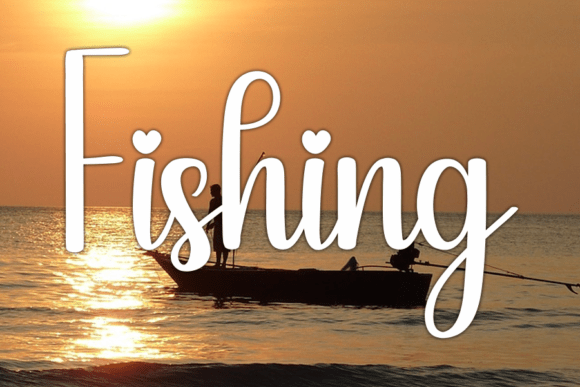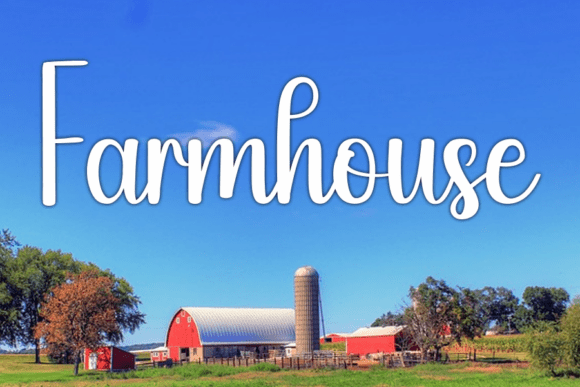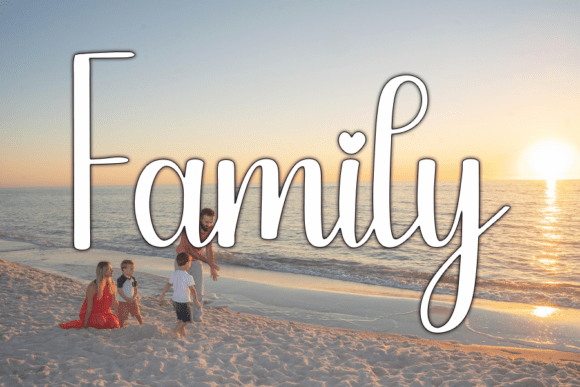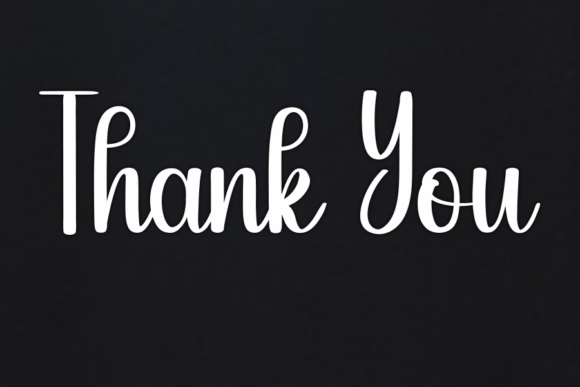
Infuse Your Designs with Emotion and Grace: The Heartbeat Font
In the world of typography, few fonts capture the essence of romance and elegance as beautifully as the Heartbeat font. This delicate monolinear script dances across the page with a grace that is hard to ignore. Defined by its elegant loops and airy feel, the Heartbeat typeface is the perfect choice for anyone looking to add a touch of sophistication and emotion to their designs.
The Essence of Heartbeat Font
The Heartbeat font is more than just a writing style; it’s a way to convey sincerity and emotion. Its beautiful, sweeping flourishes on the ascenders and descenders make it a standout choice for wedding vows, anniversary cards, and sentimental gifts. The thin, consistent line weight gives it a modern, “fine-line” aesthetic that is currently trending in tattoo art and minimalist branding.
Perfect for Creative Professionals
The Heartbeat typeface works exceptionally well as a signature font for photographers, wedding planners, and creative entrepreneurs. Its elegant and sophisticated look makes it perfect for those who want to add a touch of personality to their brand. Whether you’re looking to create a logo, business card, or website, the Heartbeat font is sure to make a lasting impression.
Pairing Suggestions
To maintain a high-end, sophisticated look, pair the Heartbeat font with a light, airy serif. This will add a touch of elegance and refinement to your designs, making them perfect for high-end branding and marketing materials.
Crafting and Design Applications
The Heartbeat font is not just limited to digital designs. It’s also perfect for crafters and makers who want to add a personal touch to their projects. Use it for:
- Laser-cut wooden signs: Add a touch of elegance to your wooden signs with the Heartbeat font.
- Vinyl wall decals: Create beautiful and sophisticated wall decals with the Heartbeat font.
- Custom jewelry engravings: Add a personal touch to your jewelry designs with the Heartbeat font.
Bringing Emotion to Your Designs
If your project needs to speak from the heart, the Heartbeat font is the perfect choice. Its delicate and elegant design makes it perfect for:
- Wedding vows and invitations
- Anniversary cards and gifts
- Sentimental letters and messages
Why Choose Heartbeat Font?
So why choose the Heartbeat font for your designs? Here are just a few reasons:
- Elegant and sophisticated design
- Perfect for romantic and sentimental projects
- Works well with a variety of design applications
- Pairs well with a variety of other fonts
In conclusion, the Heartbeat font is a beautiful and elegant script that is perfect for anyone looking to add a touch of sophistication and emotion to their designs. Its delicate loops and airy feel make it perfect for romantic and sentimental projects, while its modern and fine-line aesthetic make it perfect for minimalist branding and tattoo art. Whether you’re a designer, crafter, or creative entrepreneur, the Heartbeat font is sure to become a favorite in your collection.